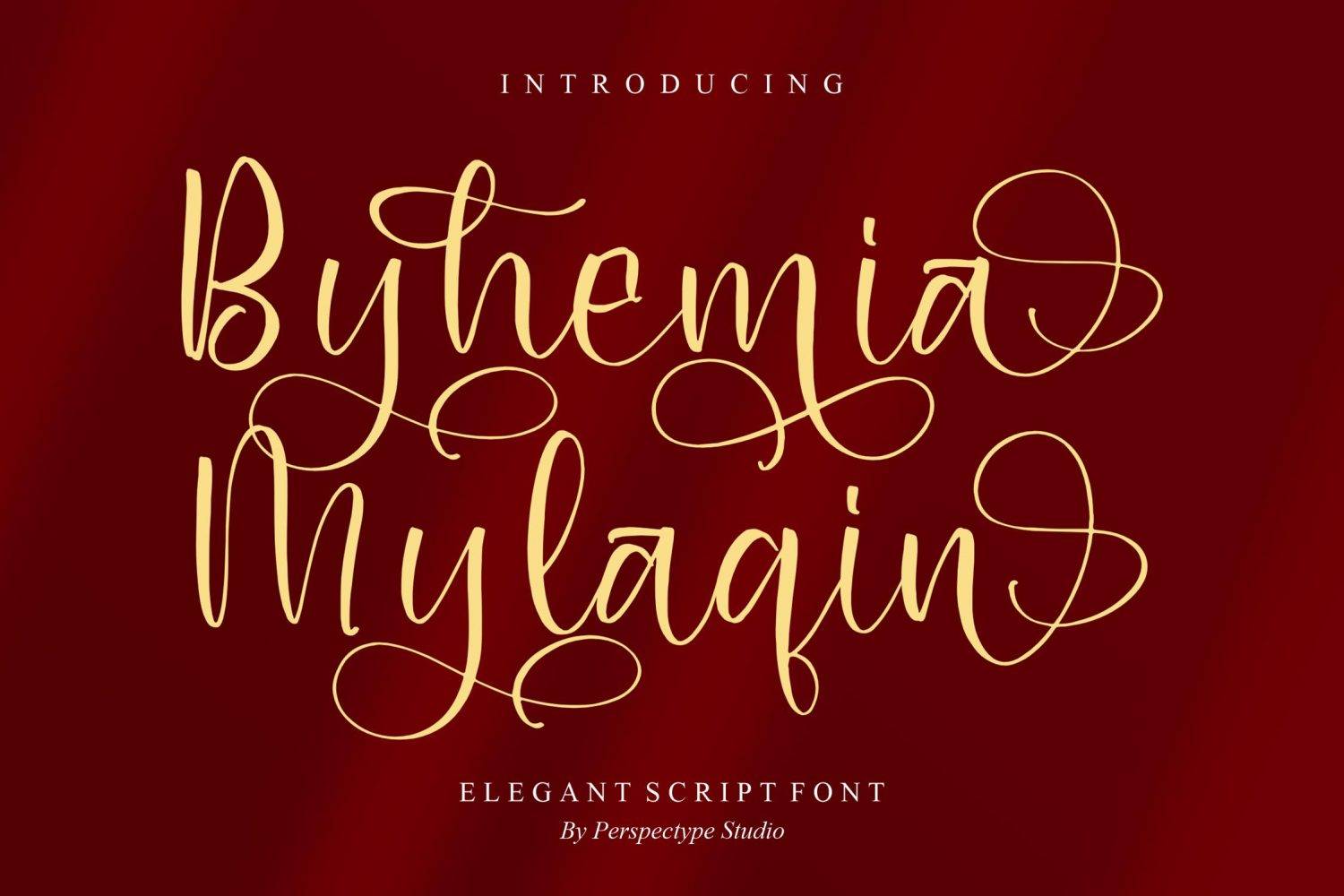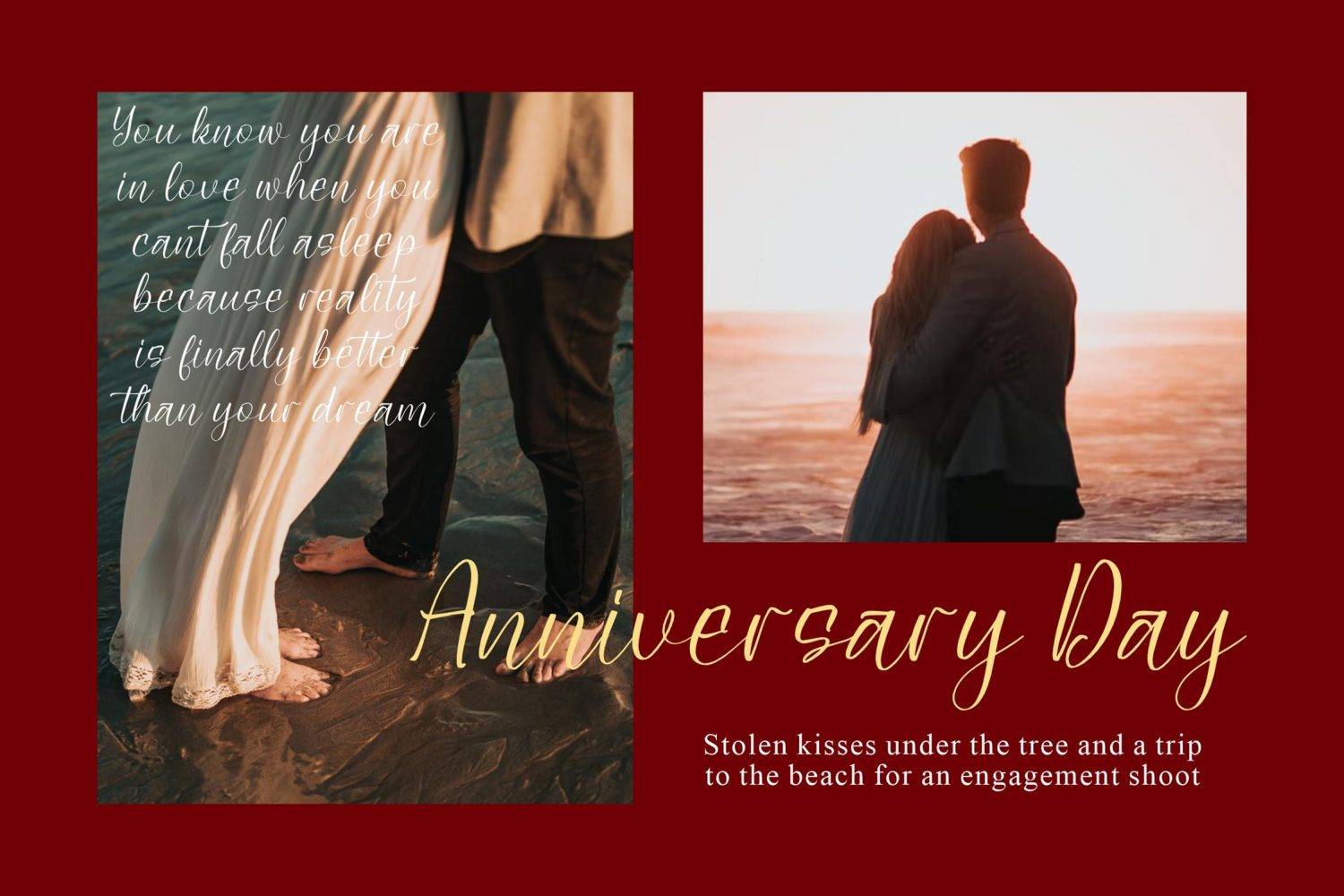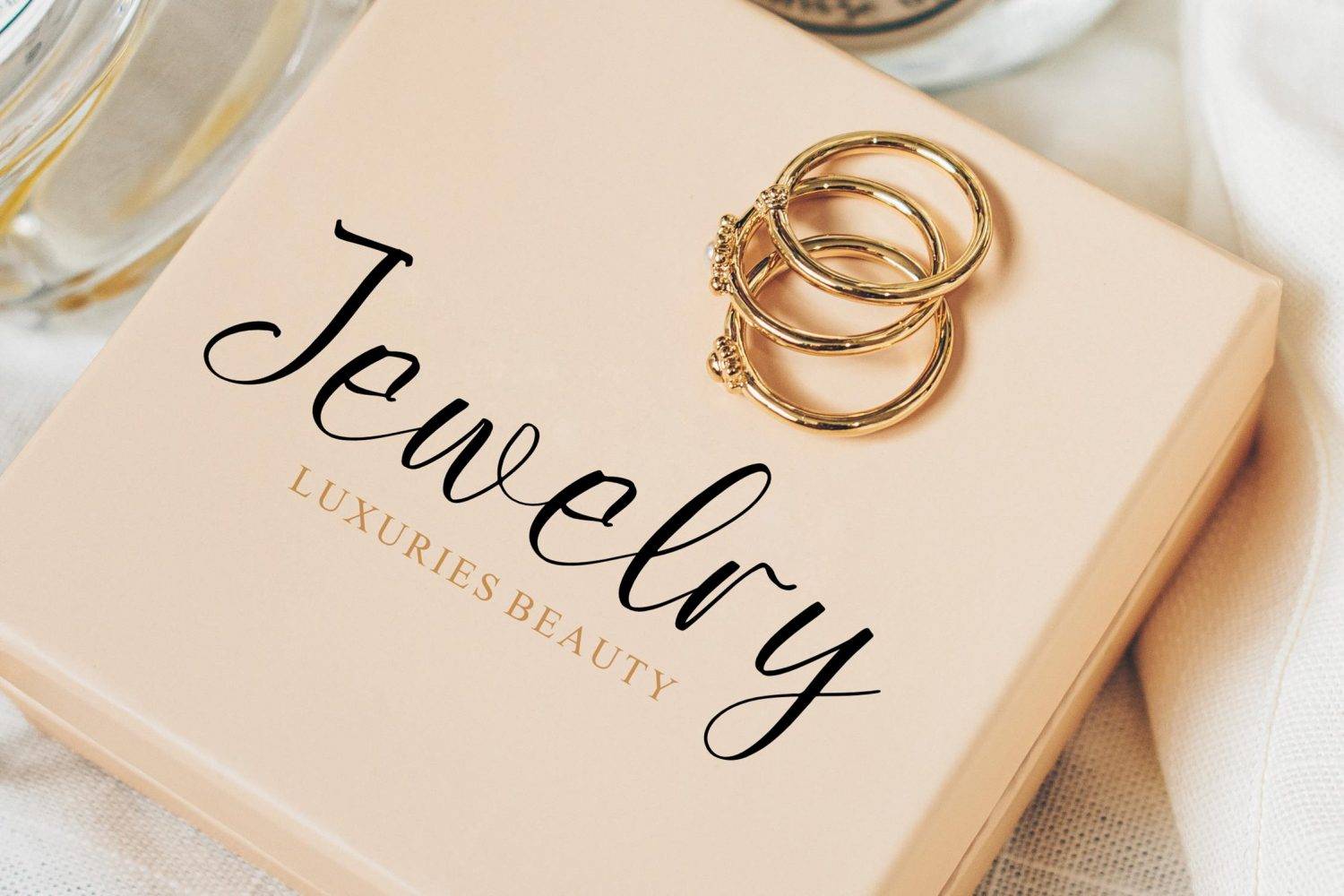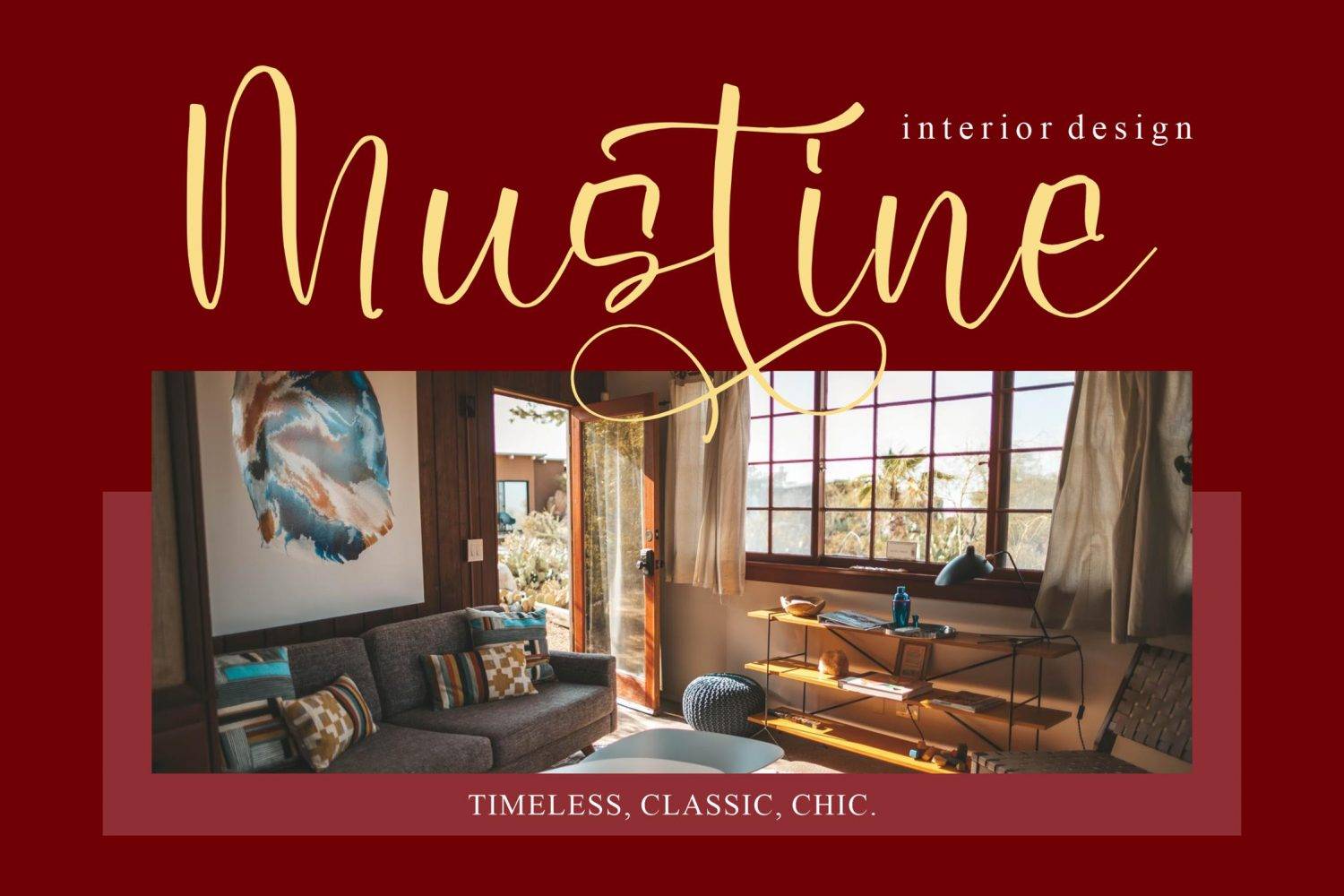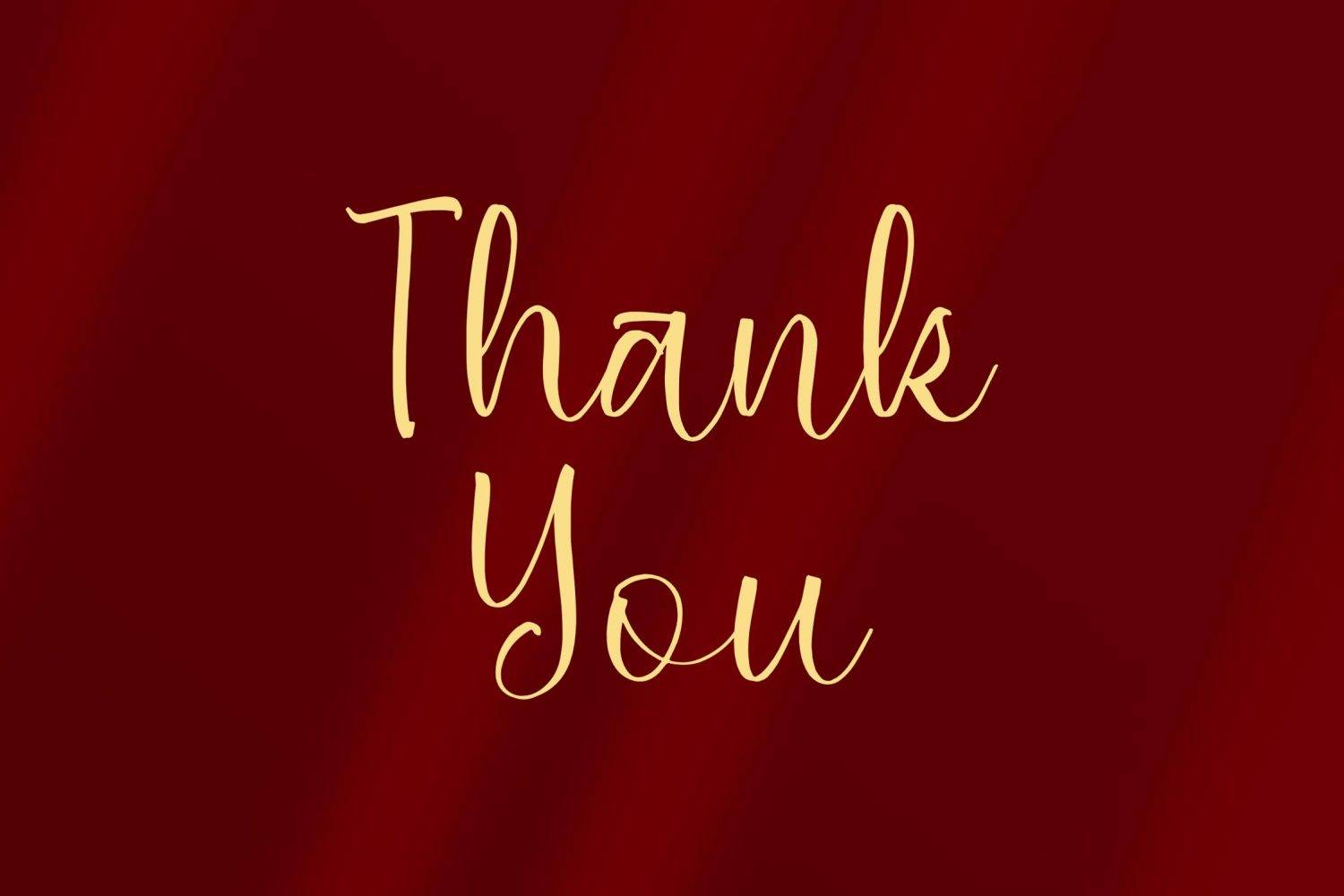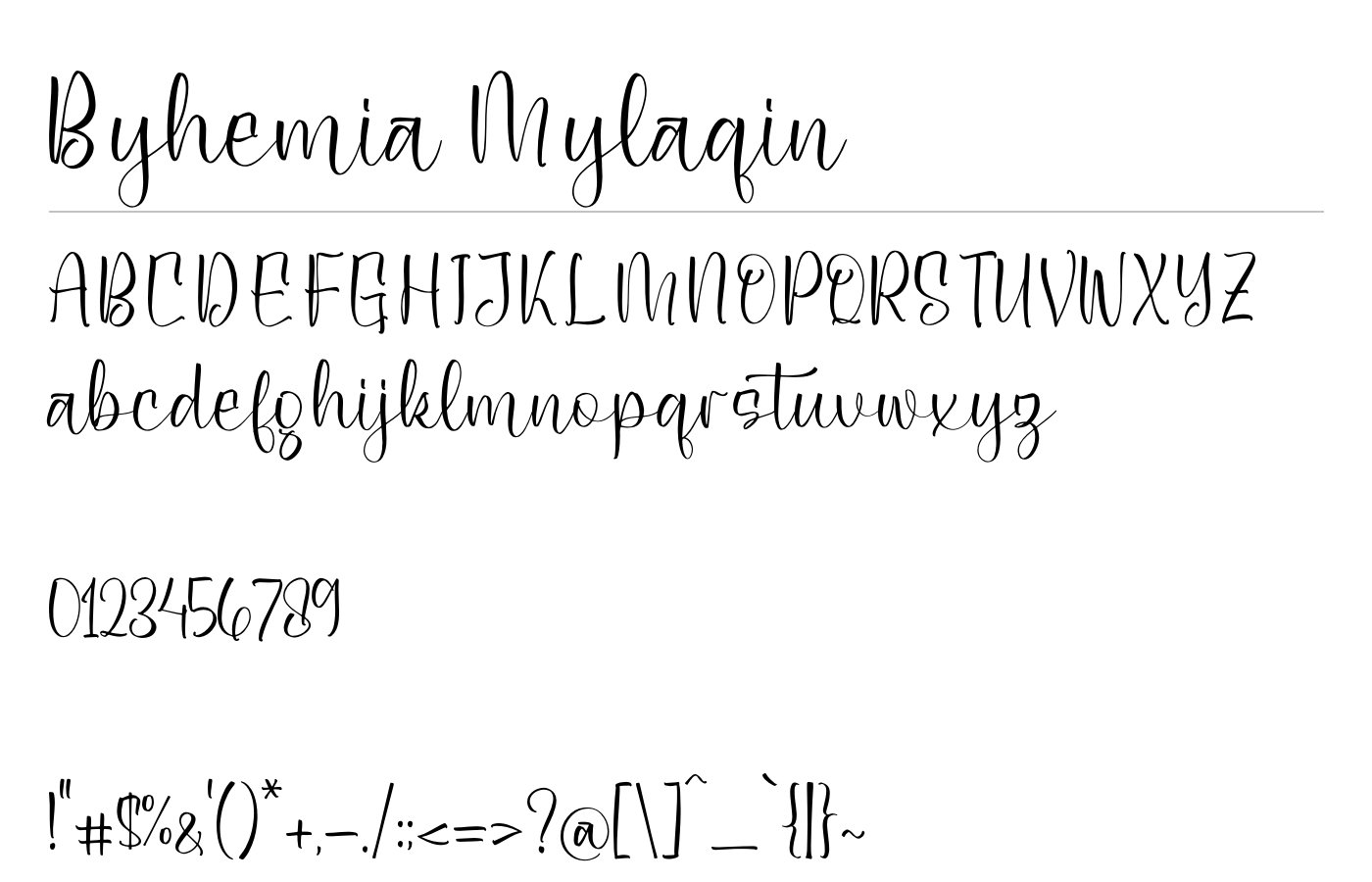
Byhemia Mylaqin is a delicate, handwritten script font with thin, elegant strokes and a tall x-height that gives it a light and airy feel. Its playful yet refined letterforms and smooth curves make it ideal for creative projects, wedding invitations, branding, and any design seeking a personal, sophisticated touch. This font works best for headlines or decorative text where its unique character can truly shine.
Byhemia Mylaqin Font